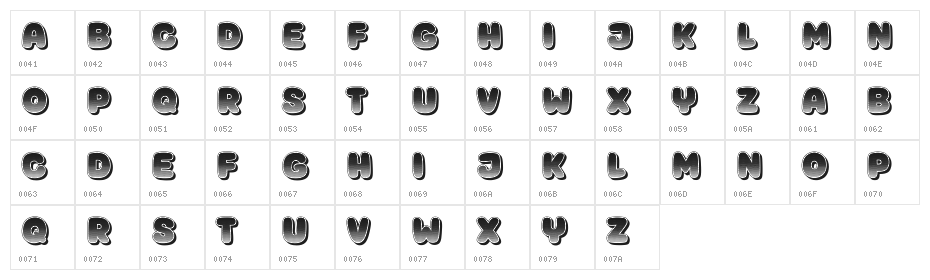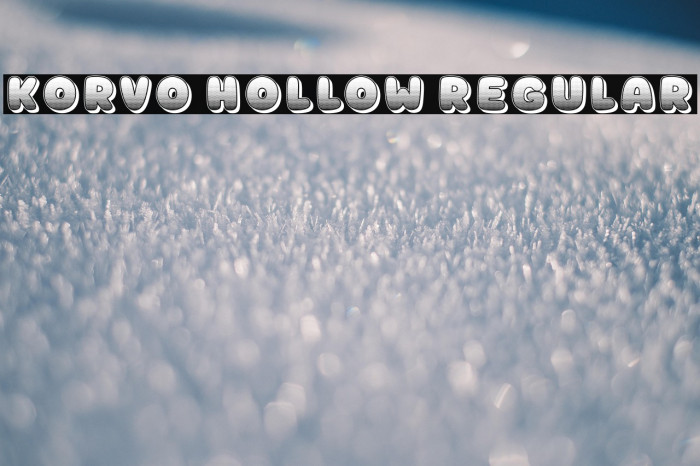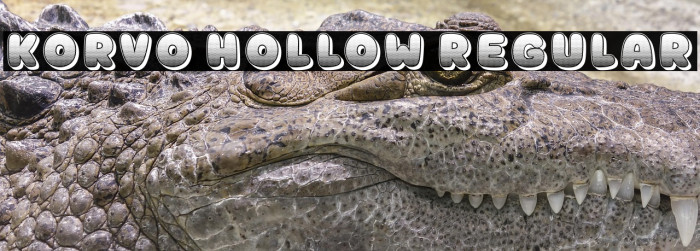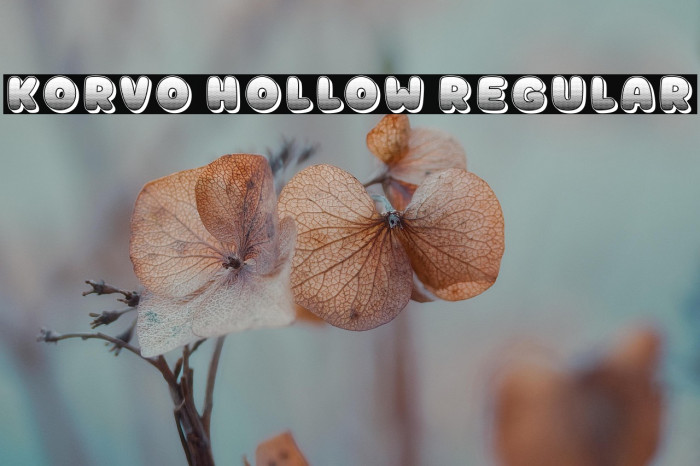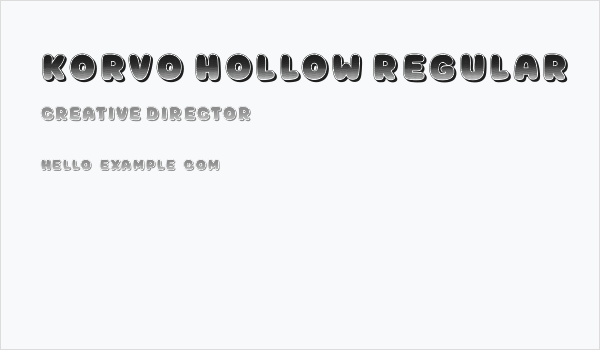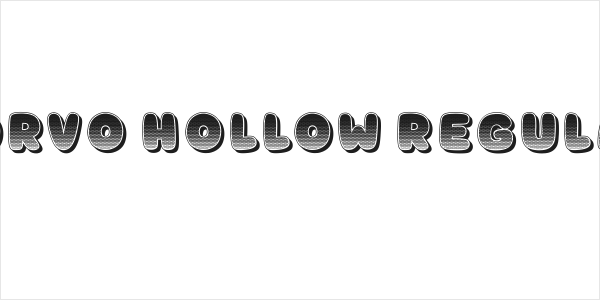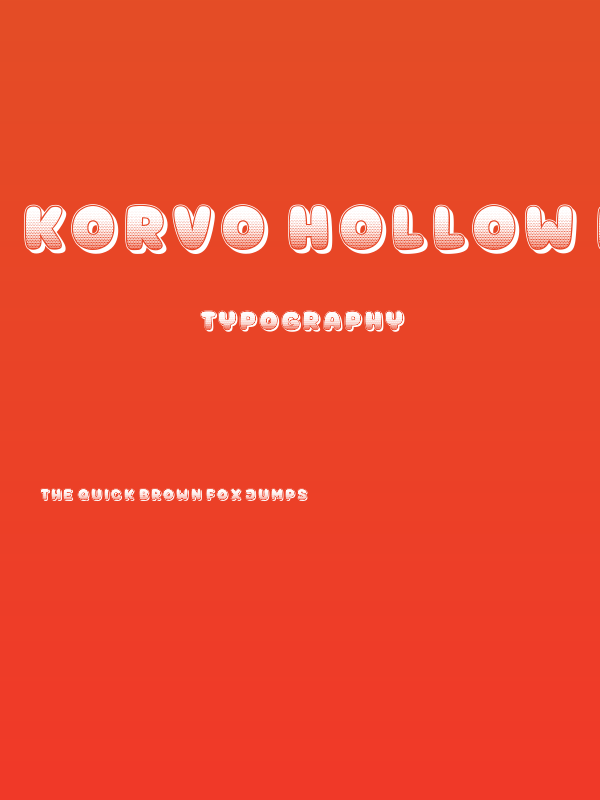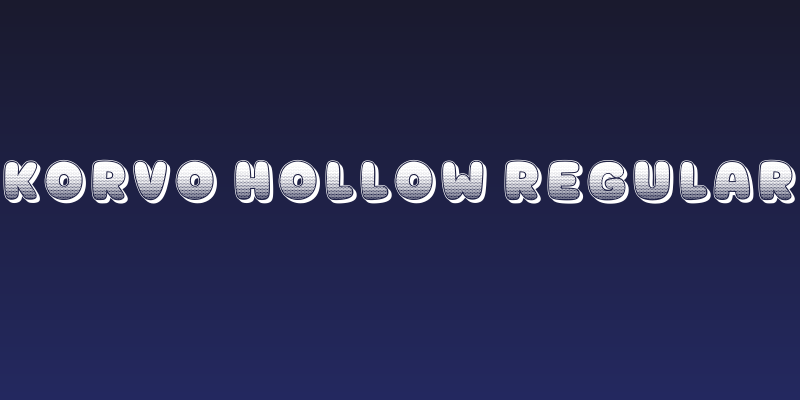
Korvo Hollow Regular Font
Korvo Hollow Regular Description
This font features a bold, hollow design with a playful and decorative style. Each character is outlined with a thick border, creating a striking contrast between the filled and empty spaces. The letters are rounded and have a soft, approachable appearance, making them ideal for eye-catching displays. The internal pattern within each letter adds depth and texture, enhancing its visual appeal. This font is perfect for projects that require a fun and engaging look, such as children's books, posters, or playful branding.
| Overall Style | Playful and Decorative |
| Proposed Projects | Ideal for children's books, playful posters, branding, and eye-catching displays. |